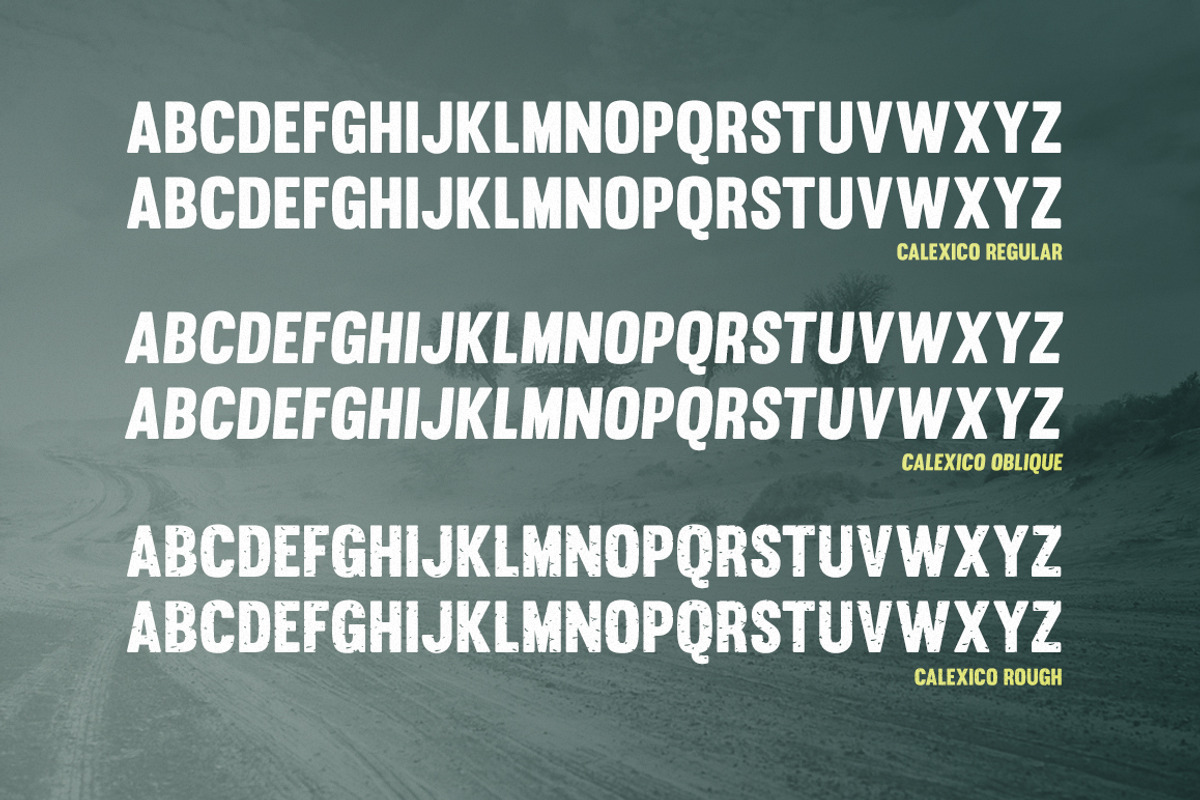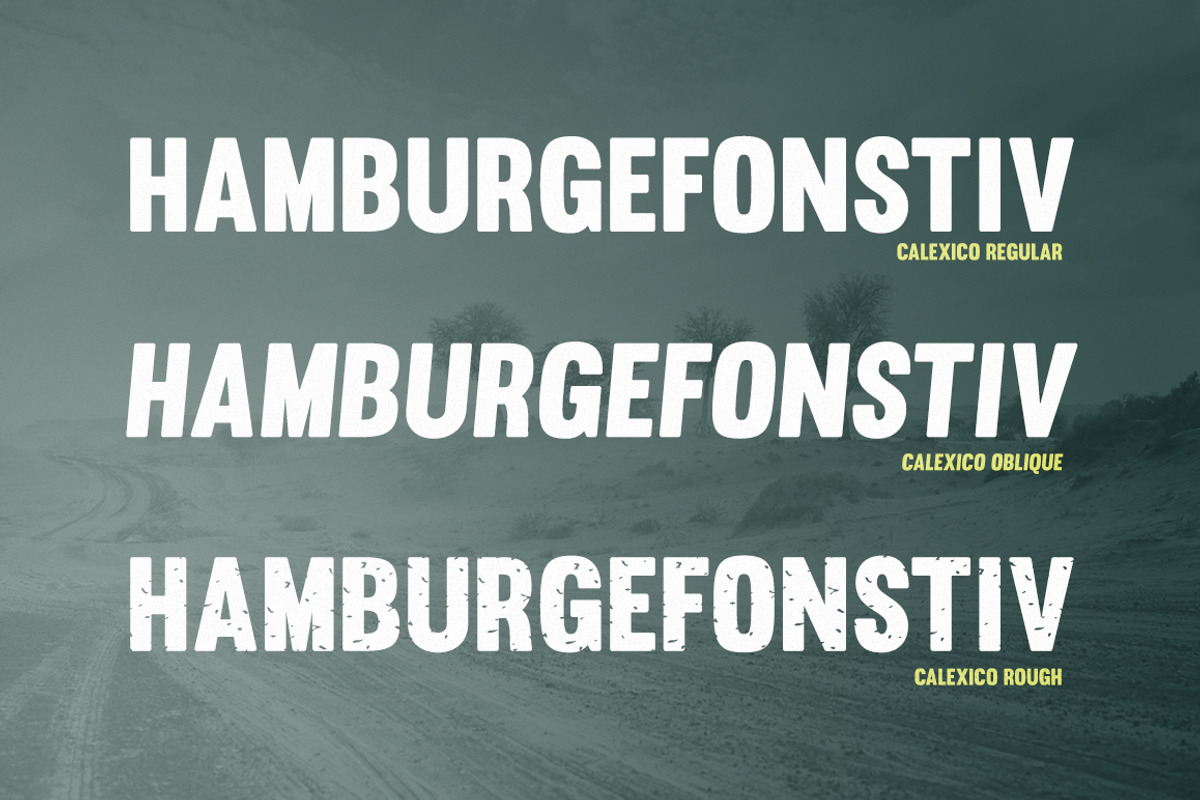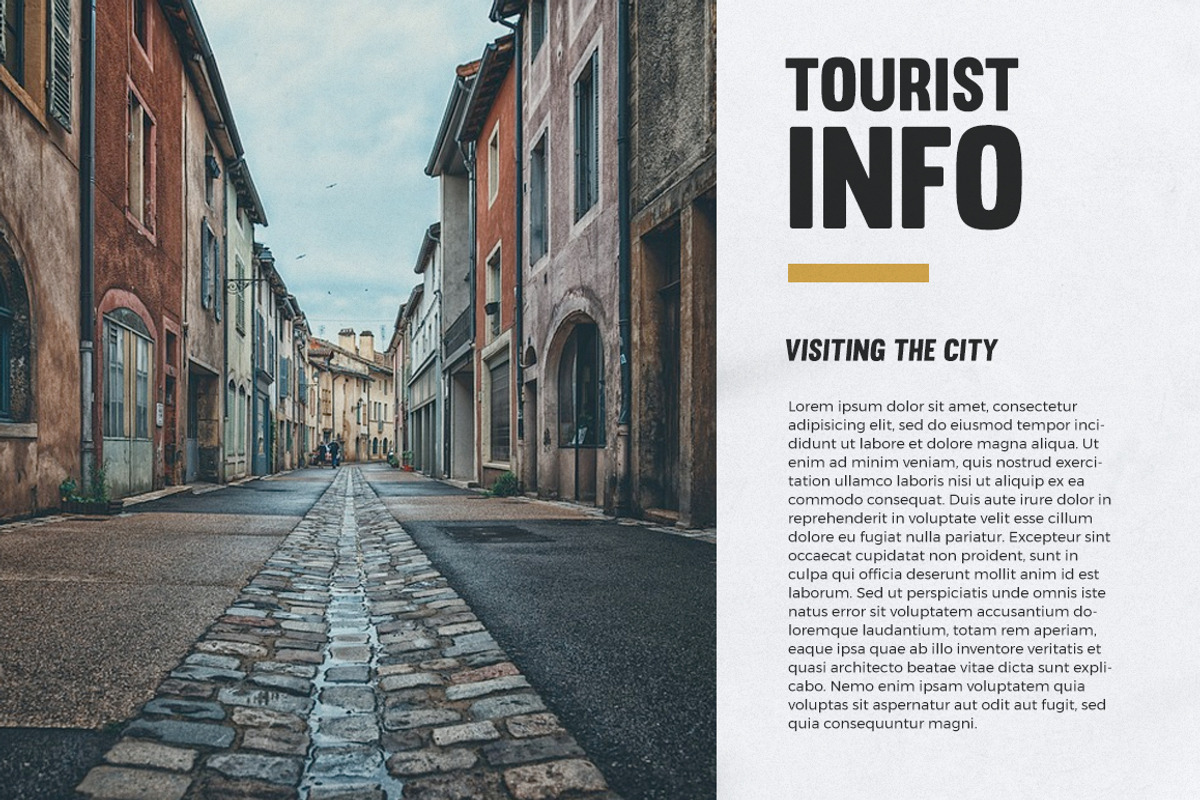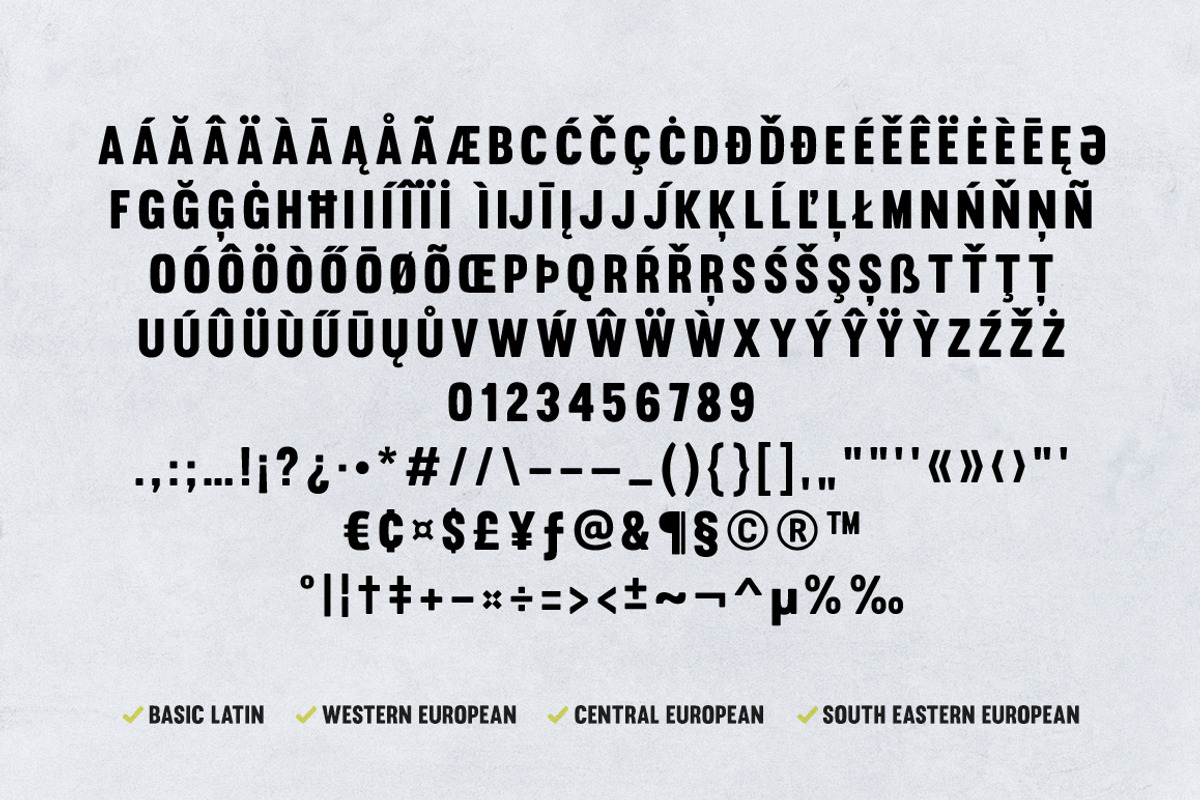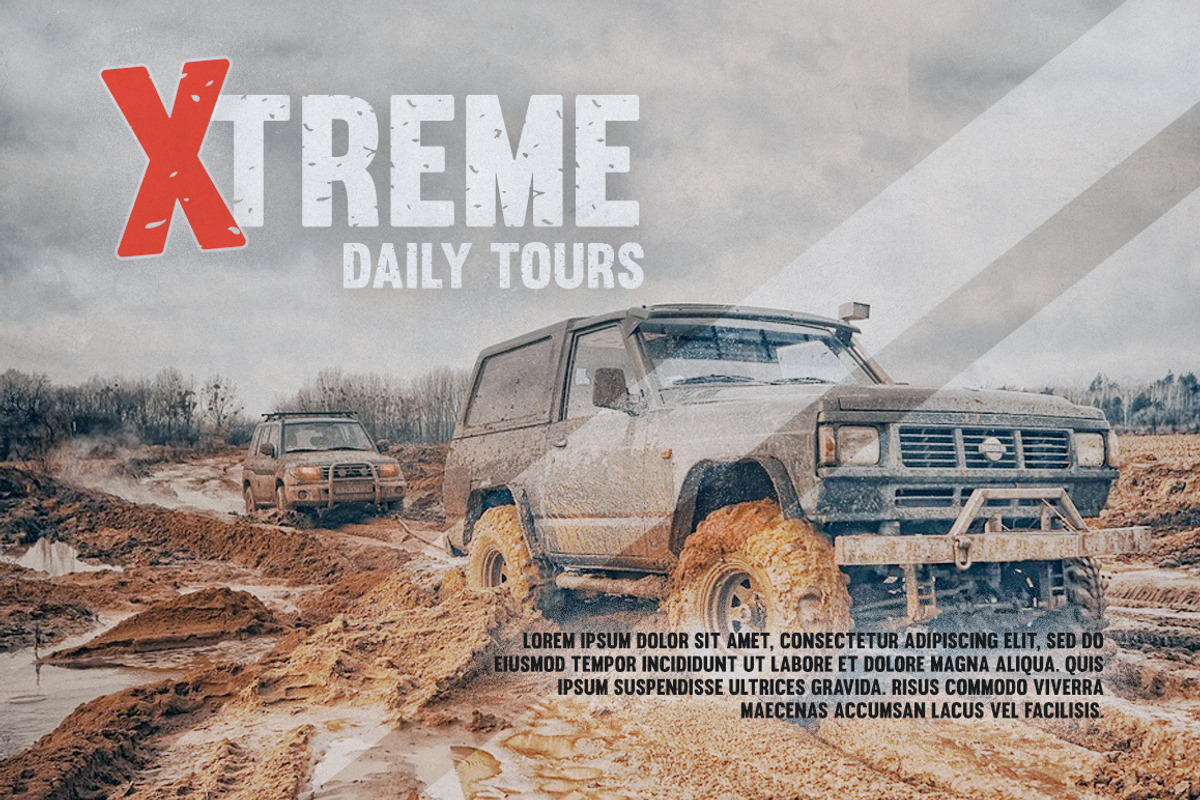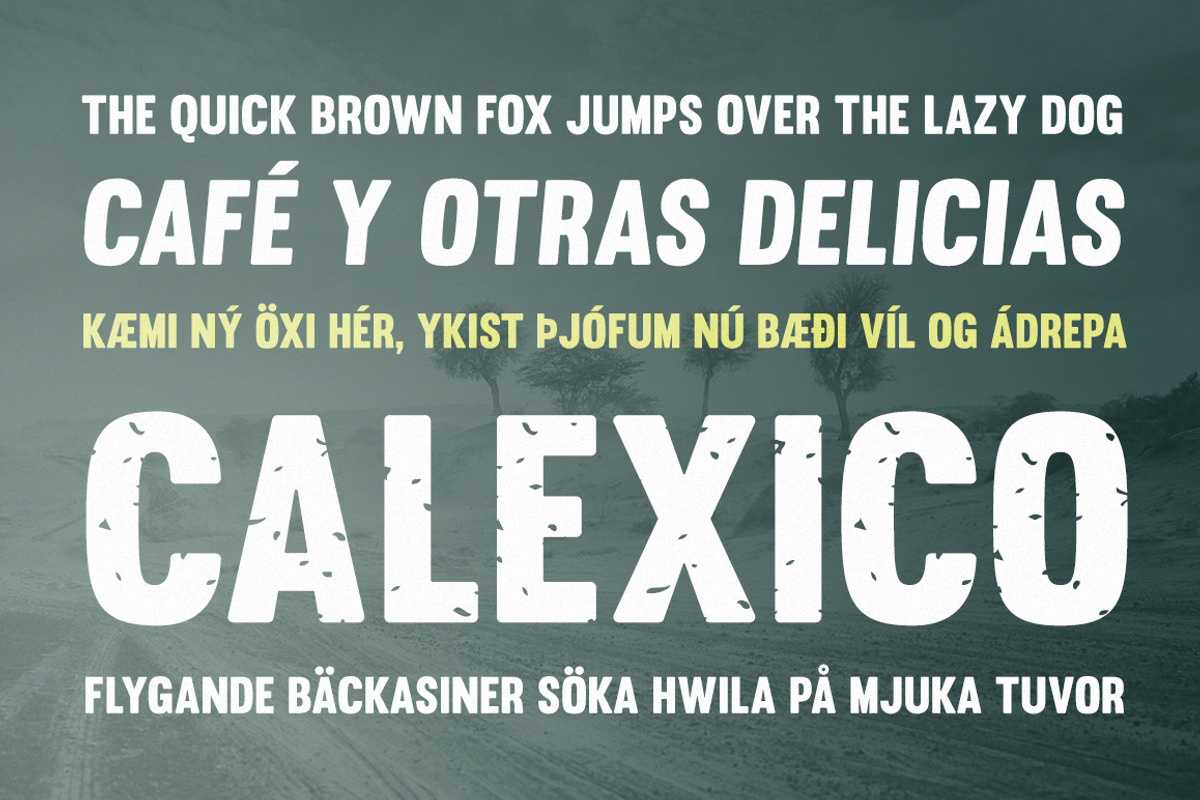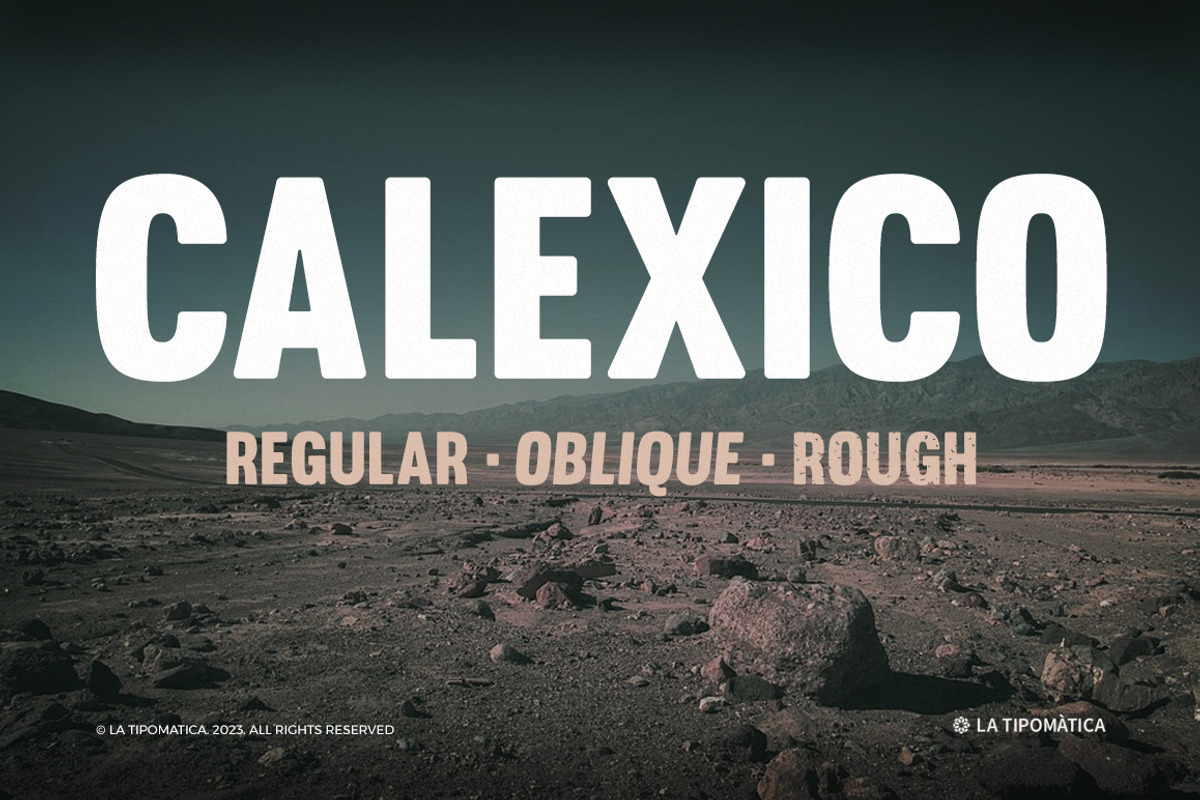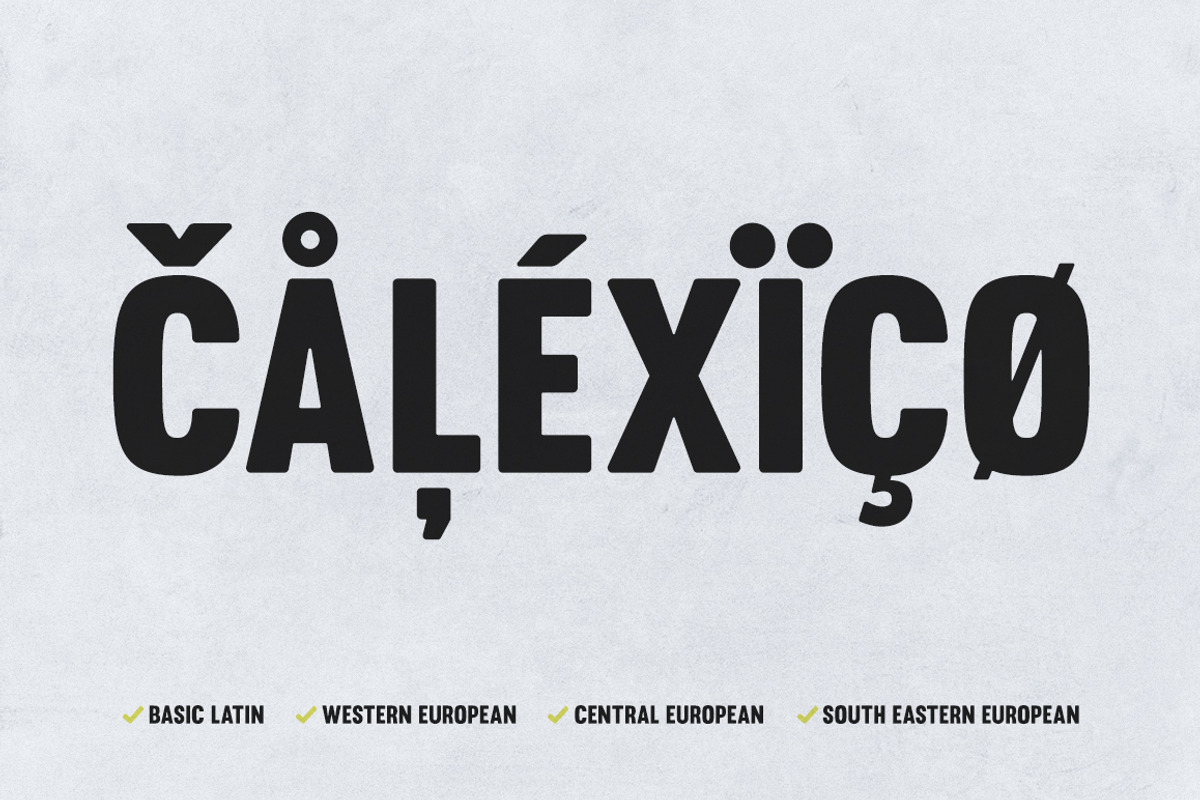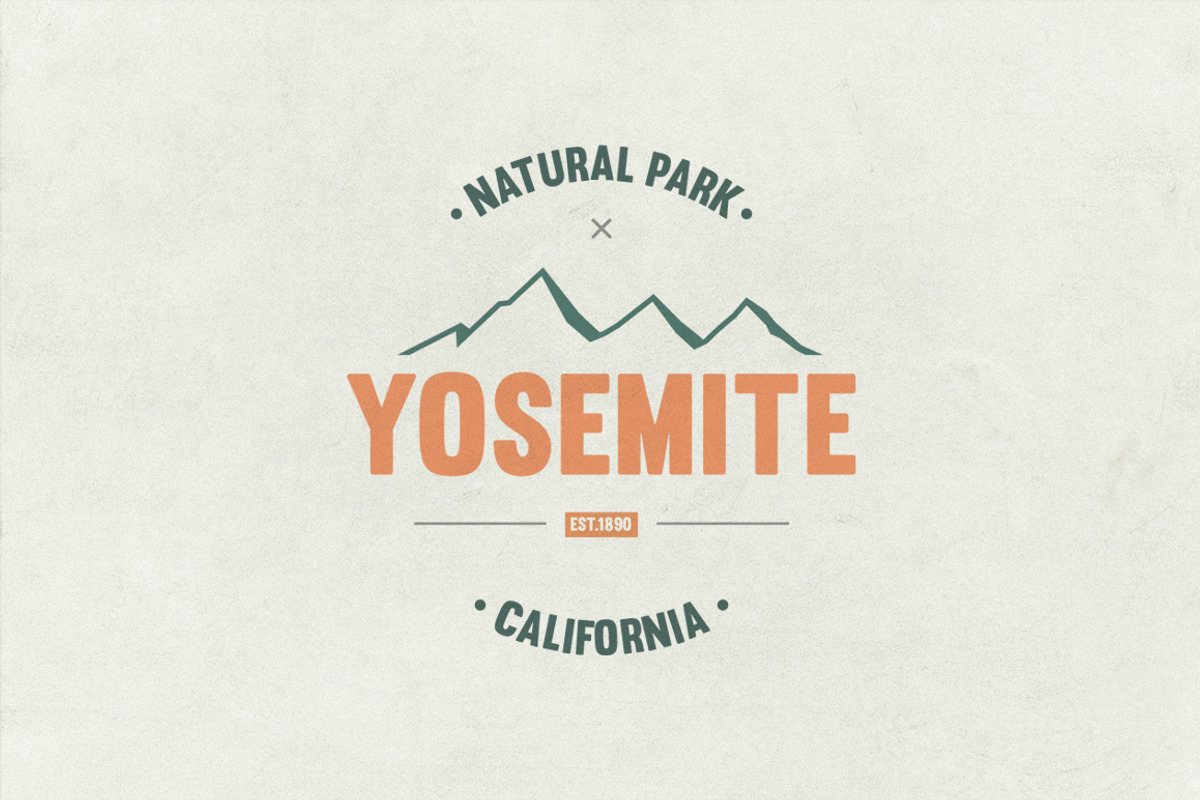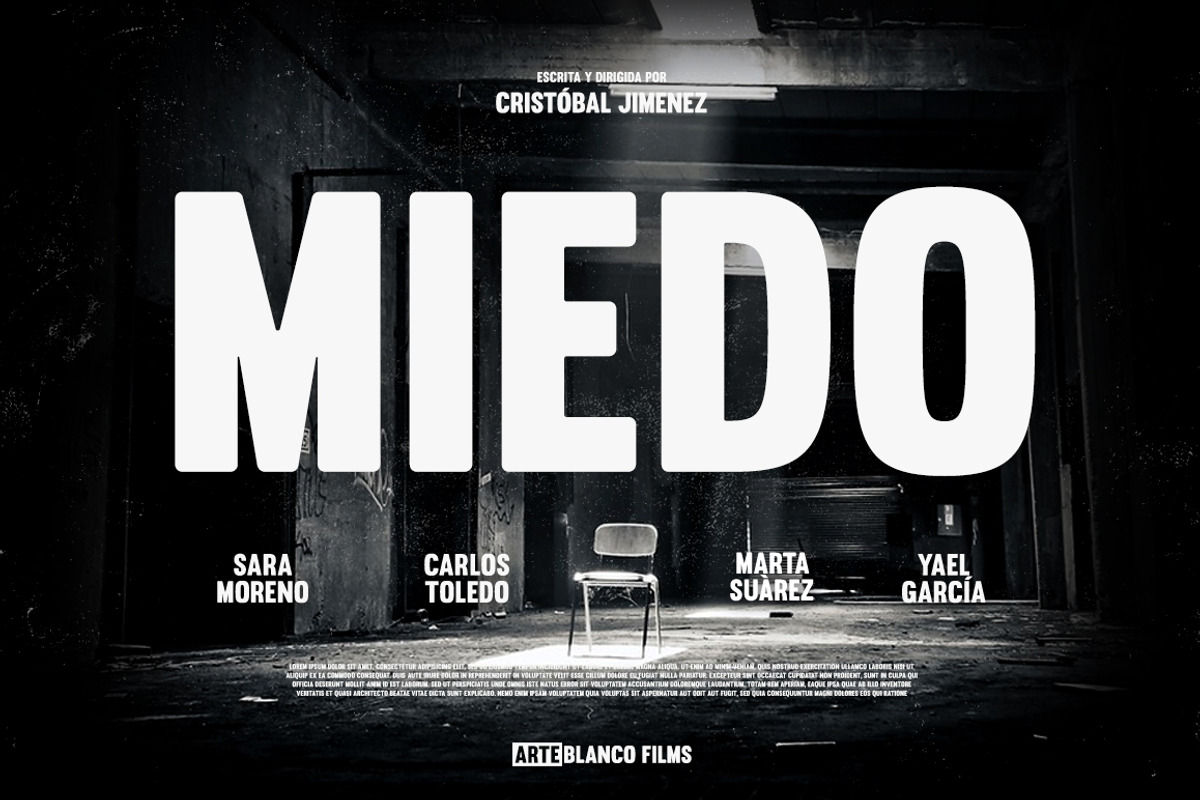
Calexico
Calexico is an all caps bold sans serif type designed to give headlines a heavy and solid mood. Calexico family consists of three styles which include the regular one, an oblique (slightly slanted) style, and a grunge looking rough one.
- 3 Style Sans Serif Bold Display Typeface
- 328 Glyphs
- Extended Latin Character Set
- Punctuation & Symbols
- Accurate Kerning